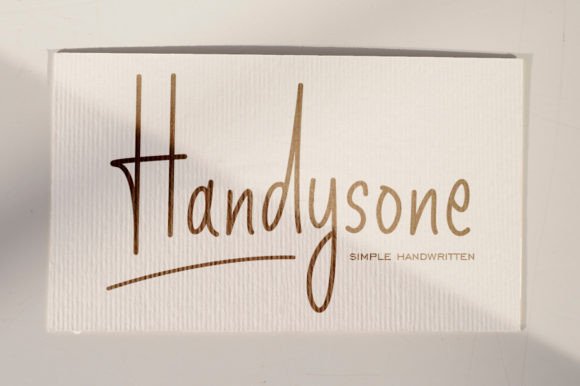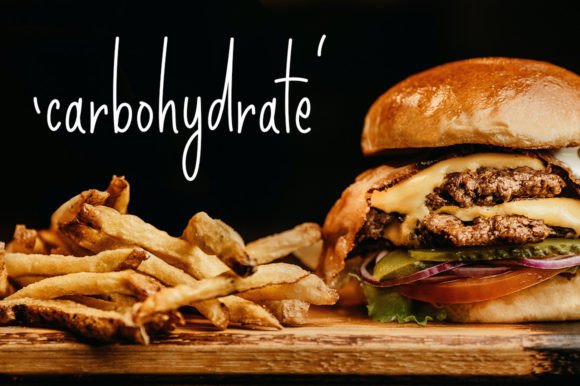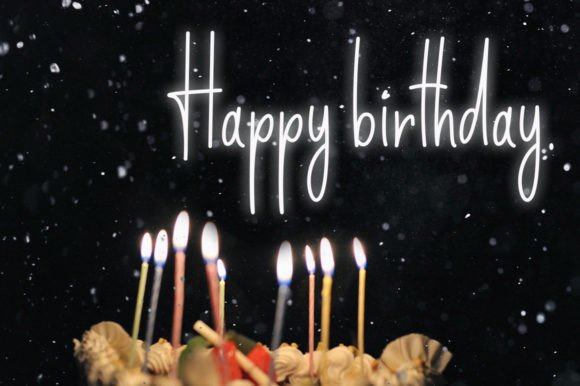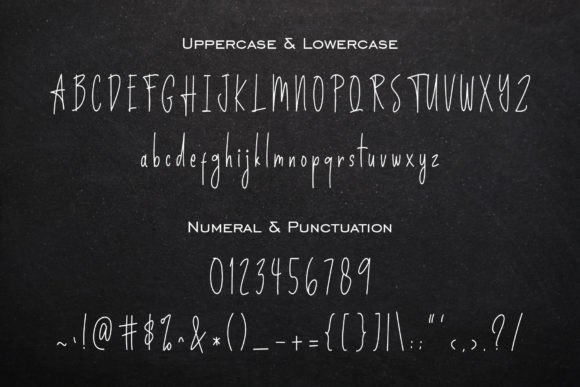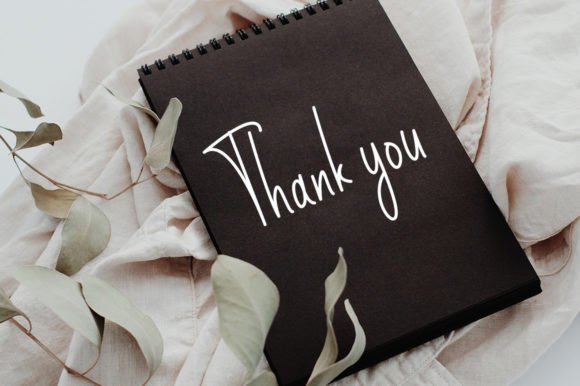
Handysone Font
Introducing Handysone, a simple and elegant handwritten font that embodies neat and stunning handwriting. Its natural character promises a delightful experience, making it the perfect choice for a wide array of projects. Whether you’re working on quotes, food recipes, greeting cards, food lists, menus, or engaging in various fun activities, Handysone adds a touch of simplicity and elegance to your creations.
The beauty of Handysone lies in its clean and well-crafted design, which reflects a handwriting style that is both charming and easy to read. This font enhances the visual appeal of your projects, creating a sense of authenticity and warmth.
For quotes, Handysone brings a personal and heartfelt touch, transforming ordinary text into a visually appealing expression of wisdom or inspiration. Its simplicity allows the message to shine through, making it suitable for a range of themes and tones.
In the realm of food recipes, menus, and food lists, Handysone’s elegant handwritten style adds a dash of sophistication. It creates a cohesive and inviting visual identity for culinary projects, making the presentation of recipes and menu items more engaging.
Greeting cards come to life with the charm of Handysone, as it adds a personal and genuine feel to your messages. Its simplicity and elegance make it suitable for a variety of occasions, from birthdays to heartfelt notes.
The versatility of Handysone extends to various fun activities, allowing you to use it in creative ways. Whether you’re designing invitations, event posters, or crafting DIY projects, this font adapts seamlessly to different contexts, enhancing the overall aesthetic.
In summary, Handysone is more than just a font; it’s an essential tool for elevating your projects with simplicity and elegance. Its handwritten charm, coupled with a clean design, ensures a positive and enjoyable experience for both creators and audiences alike. Choose Handysone for your next project and let its natural character lead you to a better design experience.